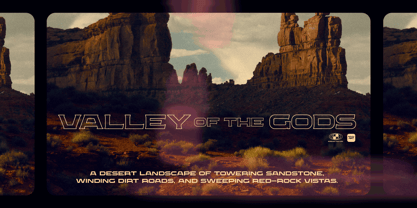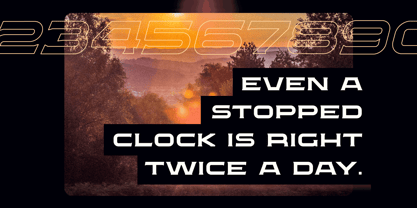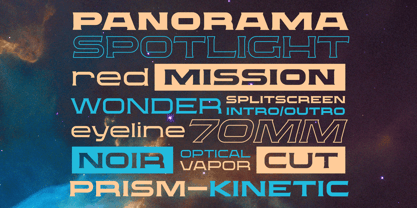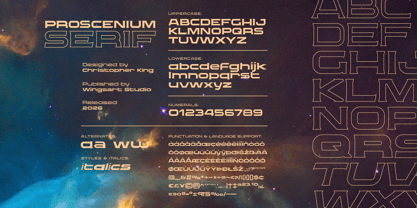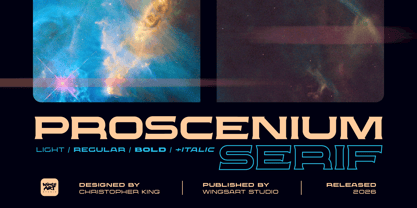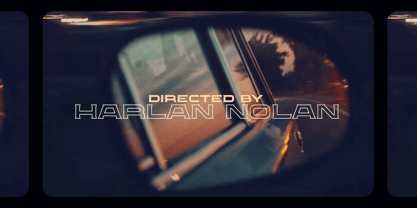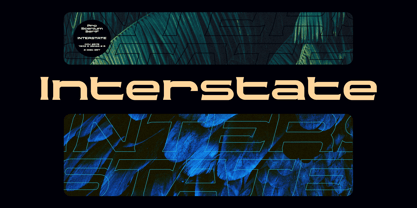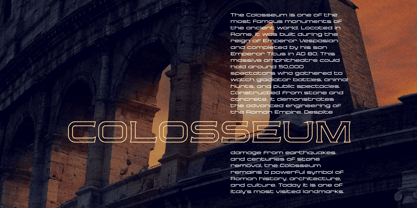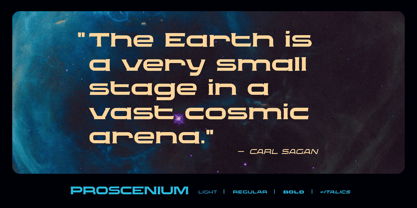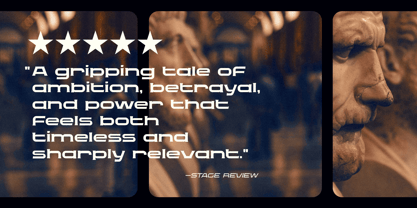
Proscenium Serif
Proscenium Serif - A Widescreen Title Font Designed for Cinema Proscenium Serif is an impactful serif font designed to compliment the widescreen aspect ratio of big screen movie productions. Inspired by the typography of opening titles and credit sequences, the Proscenium series was created to match letterbox style aspect ratios, typical of 35, 65, or 70mm cinema film formats. It boasts a clean, legible style that projects a mature strength, while versatile enough to sit comfortably among contemporary, period or science-fiction genres. It's works equally well across print and digital media, making for impactful headers or quotes for magazine editorials, album art or social media. It comes in three weights: Light, Regular and Bold, along with italic styles, all including complete uppercase and lowercase alphabets, numerals, punctuation, symbols, and multilingual support.
Proscenium Serif